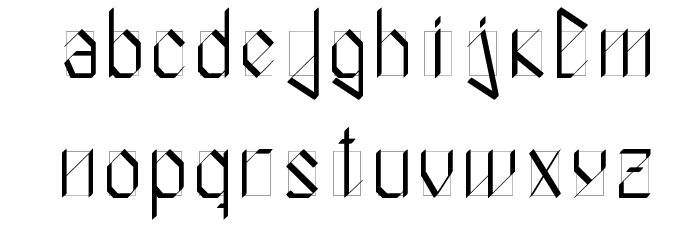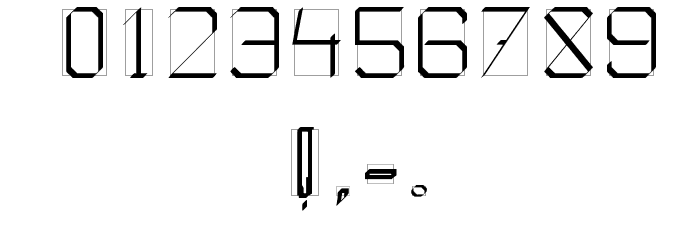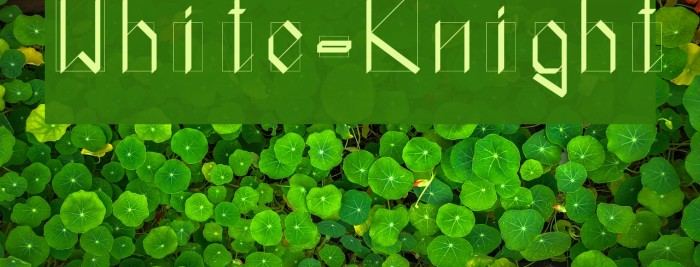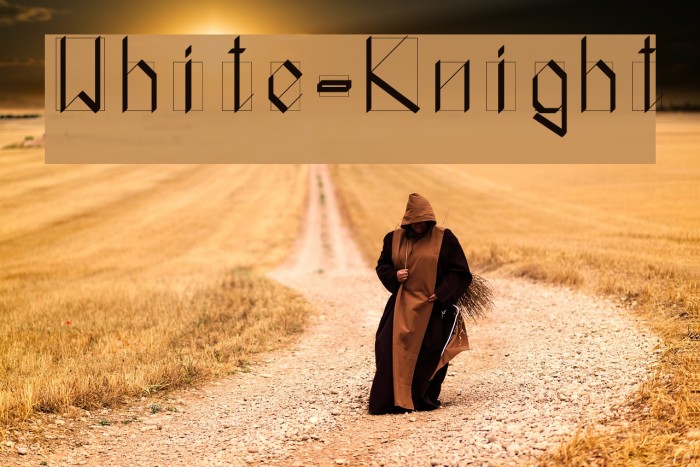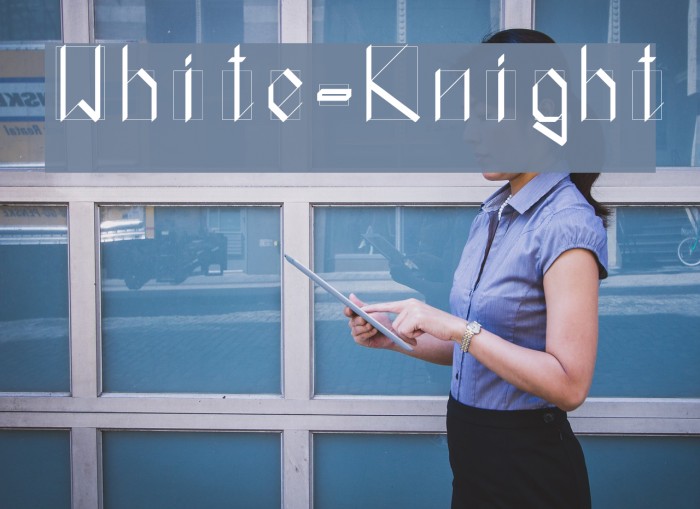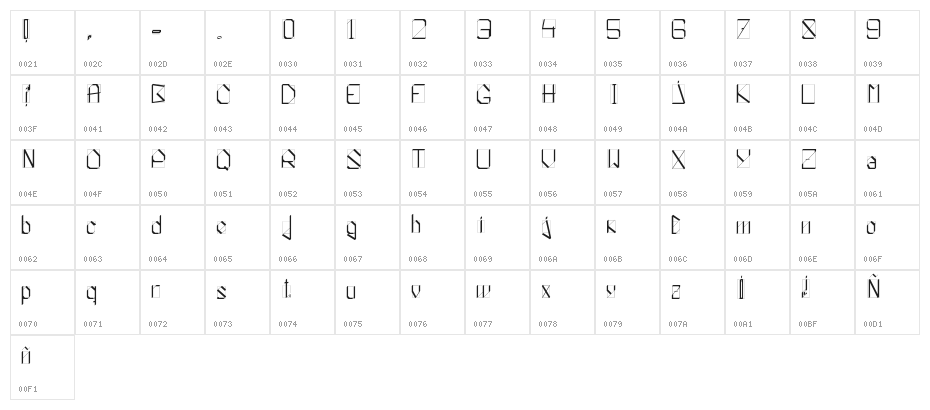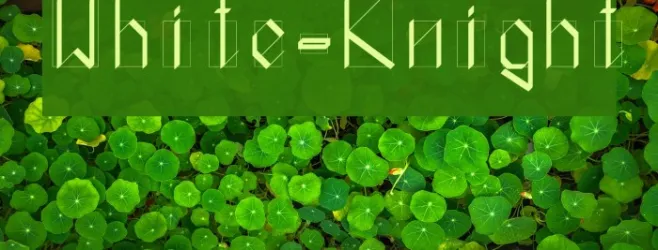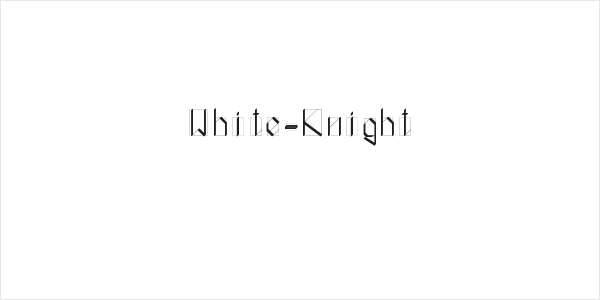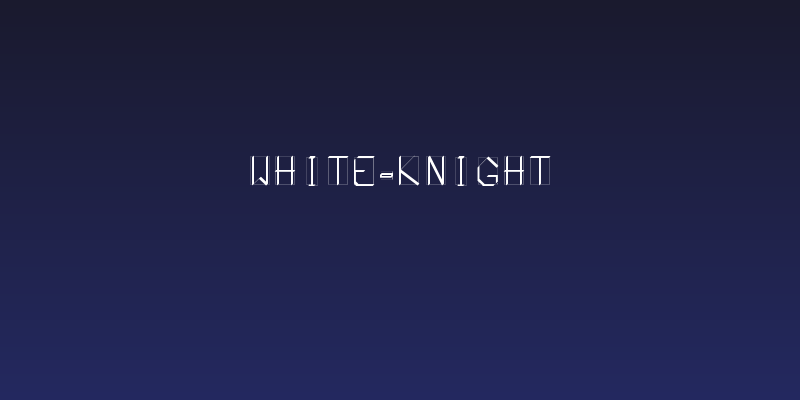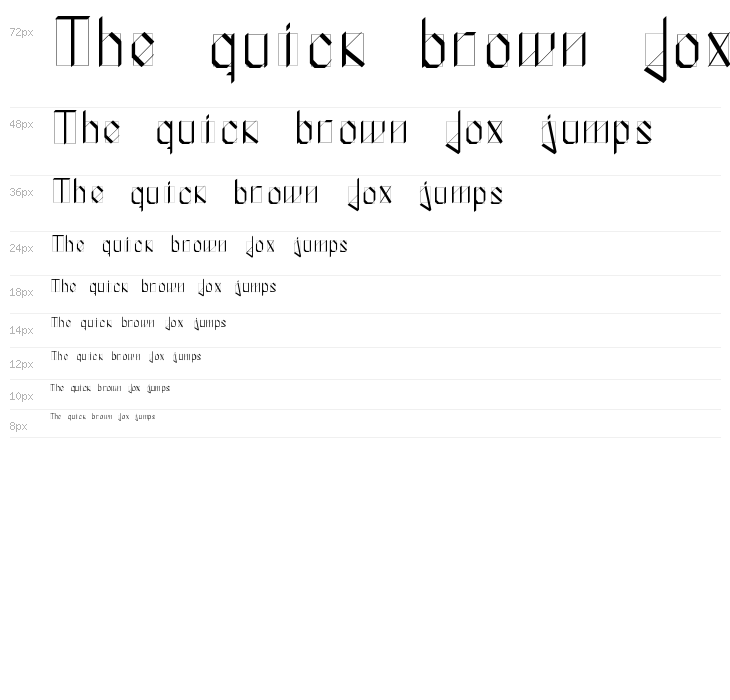
White-Knight Font
This font features a unique blend of geometric and angular elements, creating a modern and edgy appearance. The characters are constructed with sharp, clean lines and distinct angles, giving them a futuristic and technical feel. The uppercase and lowercase letters maintain a consistent style, with the uppercase being slightly more pronounced. The numerals and special characters follow the same design principles, ensuring a cohesive look across all elements. This font's design is both striking and versatile, making it suitable for a variety of creative applications.
A modern, angular font with a geometric and technical aesthetic.
- Proposed Projects: Ideal for technology branding, sci-fi themed projects, modern posters, and innovative product packaging.